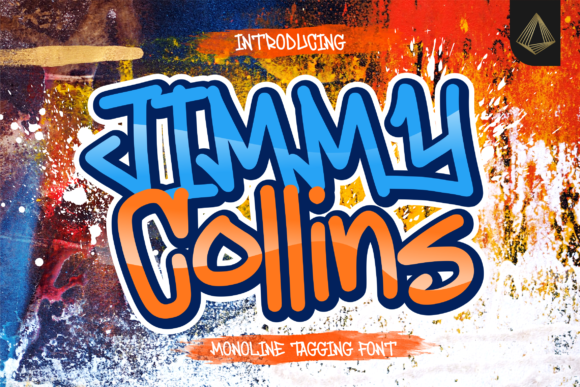
Feel the freedom to design with uniqueness and individuality. Introducing Jimmy Collins, the display font that sparks creativity and makes your designs shine. Its playful and energetic personality promises to invigorate your projects, adding a breath of fresh air to any concept.
With Jimmy Collins, you'll unveil a world of visual possibilities. Its bouncy and quirky characters will bring a youthful exuberance to your designs, whether it's a whimsical logo, an eye-catching poster, or an engaging social media graphic.
Explore the boundless versatility of Jimmy Collins. Perfectly suited as the best font for body text, it effortlessly elevates your written content, making it instantly captivating and enjoyable to read. From sleek and stylish websites to captivating marketing materials, Jimmy Collins effortlessly captivates your audience, leaving a lasting impression that lingers.
Let Jimmy Collins infuse your designs with a dash of playful charm. Its unique personality will add an irresistible allure, attracting attention and sparking curiosity. Prepare to witness the transformation as your designs blossom with creativity and originality, leaving a lasting impact on all who encounter them. Unleash your imagination and embrace the endless possibilities with Jimmy Collins!